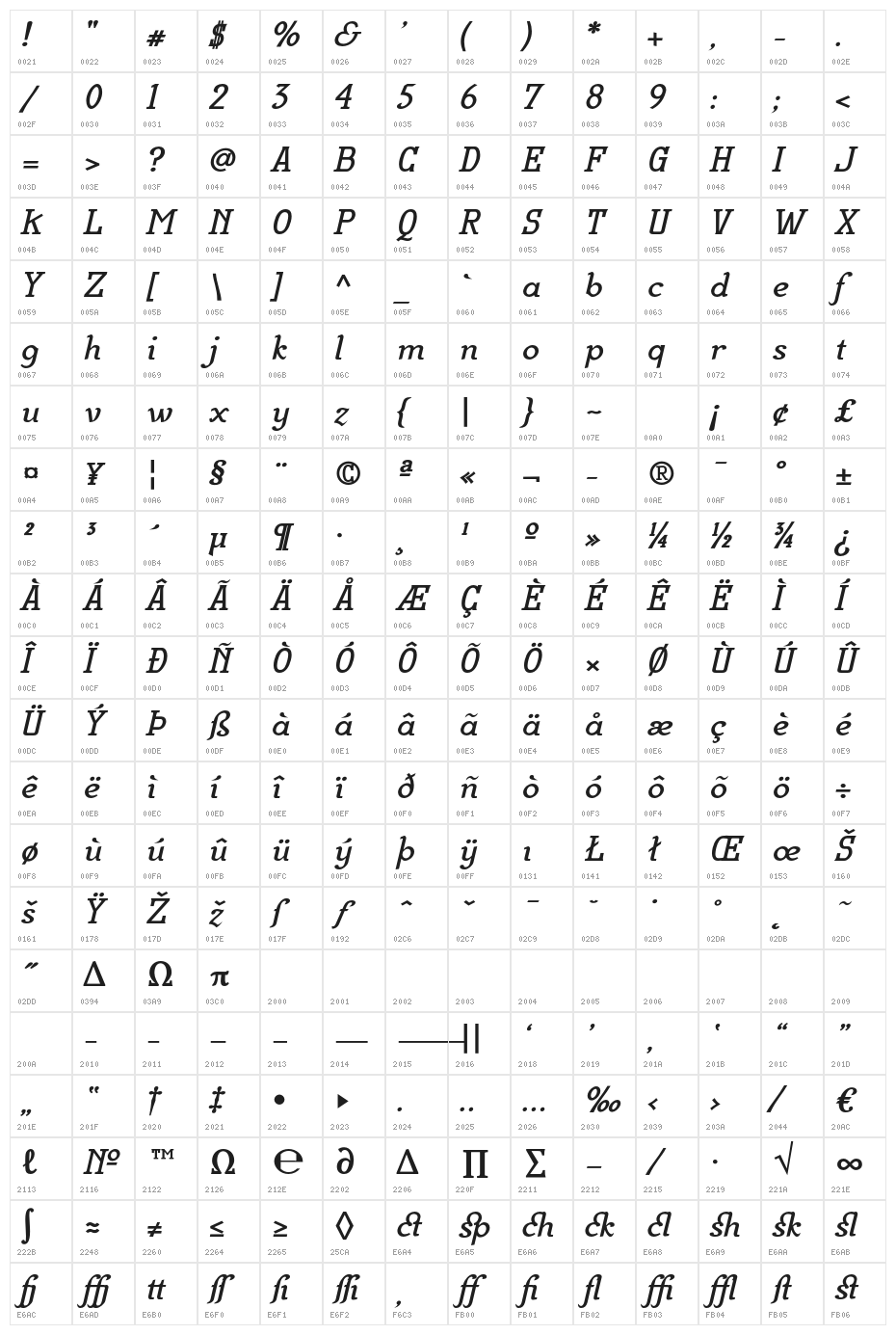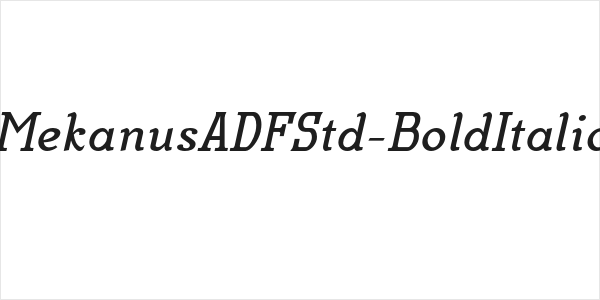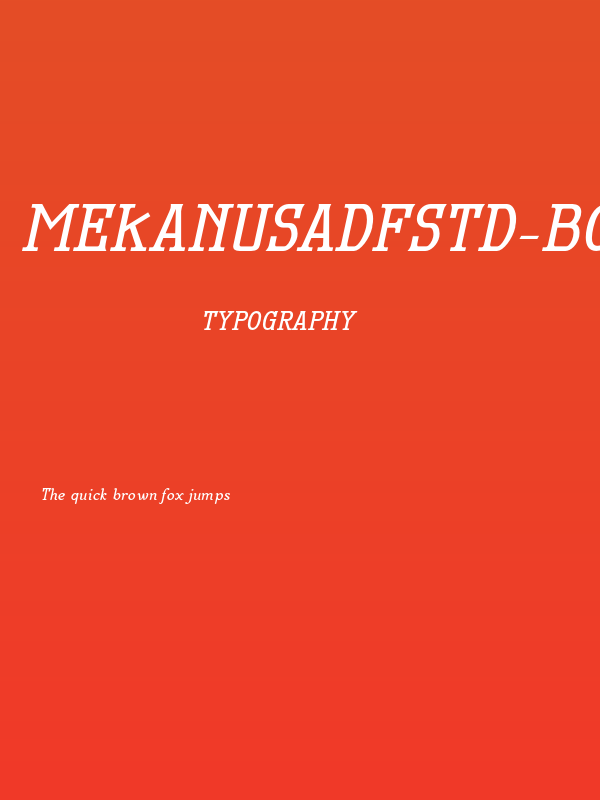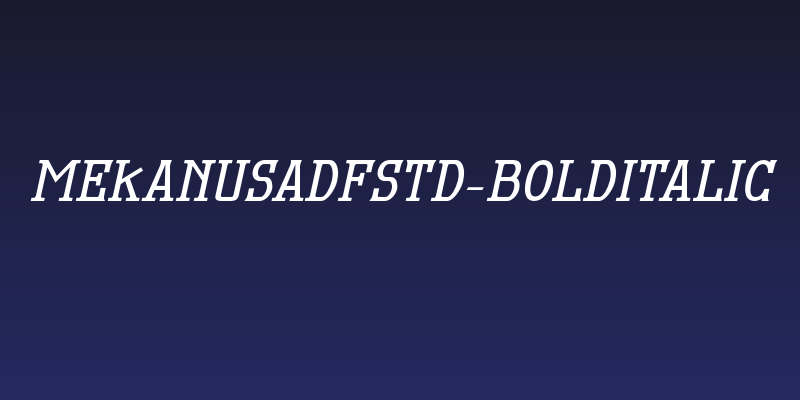
MekanusADFStd-BoldItalic Font
MekanusADFStd-BoldItalic Description
This font features a bold and italicized style, combining the strength of bold lettering with the elegance of italics. The characters are well-defined with a slight slant, giving it a dynamic and sophisticated appearance. The uppercase letters are tall and commanding, while the lowercase letters maintain a consistent flow, enhancing readability. The numerals are clear and distinct, making them suitable for various applications. Special characters are included, providing versatility for different contexts. The overall design is modern yet retains a classic touch, making it suitable for both contemporary and traditional projects.
| Proposed Projects | Ideal for branding, headlines, posters, and editorial design. |